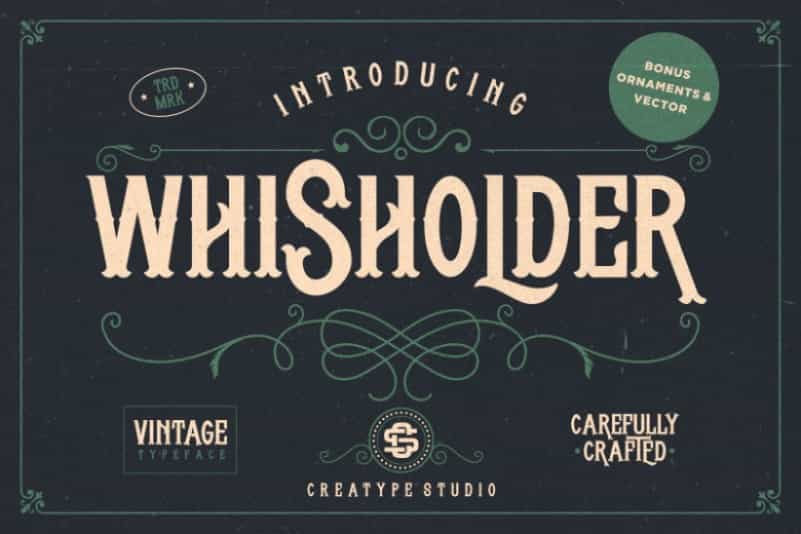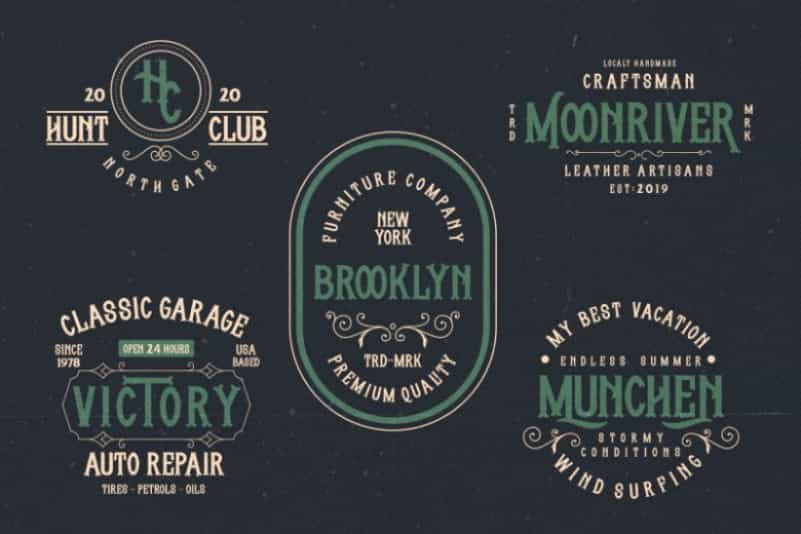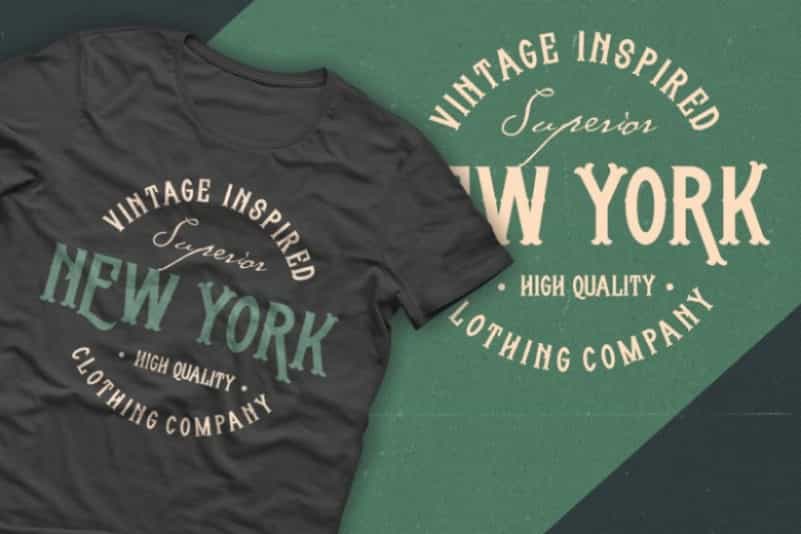
Whisholder Vintage Retro Font
Whisholder is a font that uses the traditional signage and artwork designs incorporated into the font in detail. It has a kind of sophistication that it looks rather masculine and powerful. Also, It has Adventure & Camp vectors for creating vintage lettering.